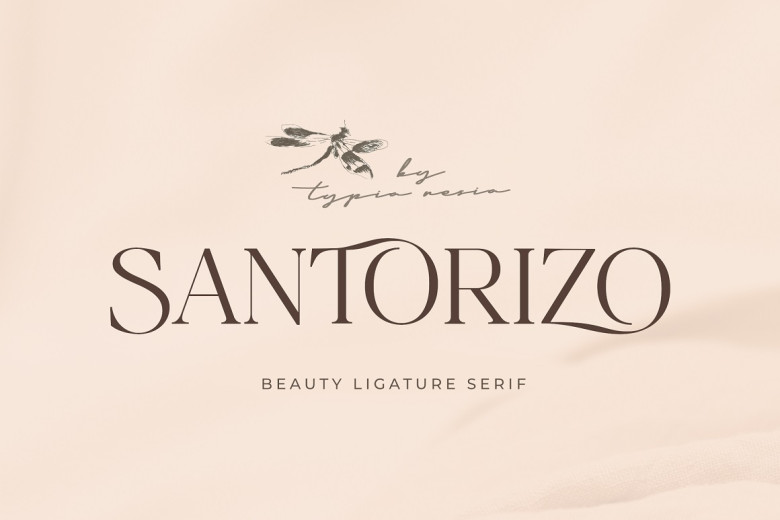
Santorizo Font
Santorizo is a ligature serif font with stunning beauty, adding a touch of elegance and creativity to any project you are working on. This font is perfect for a wide range of design projects including magazines, books, invitations as well as logos.
Santorizo Serif Font